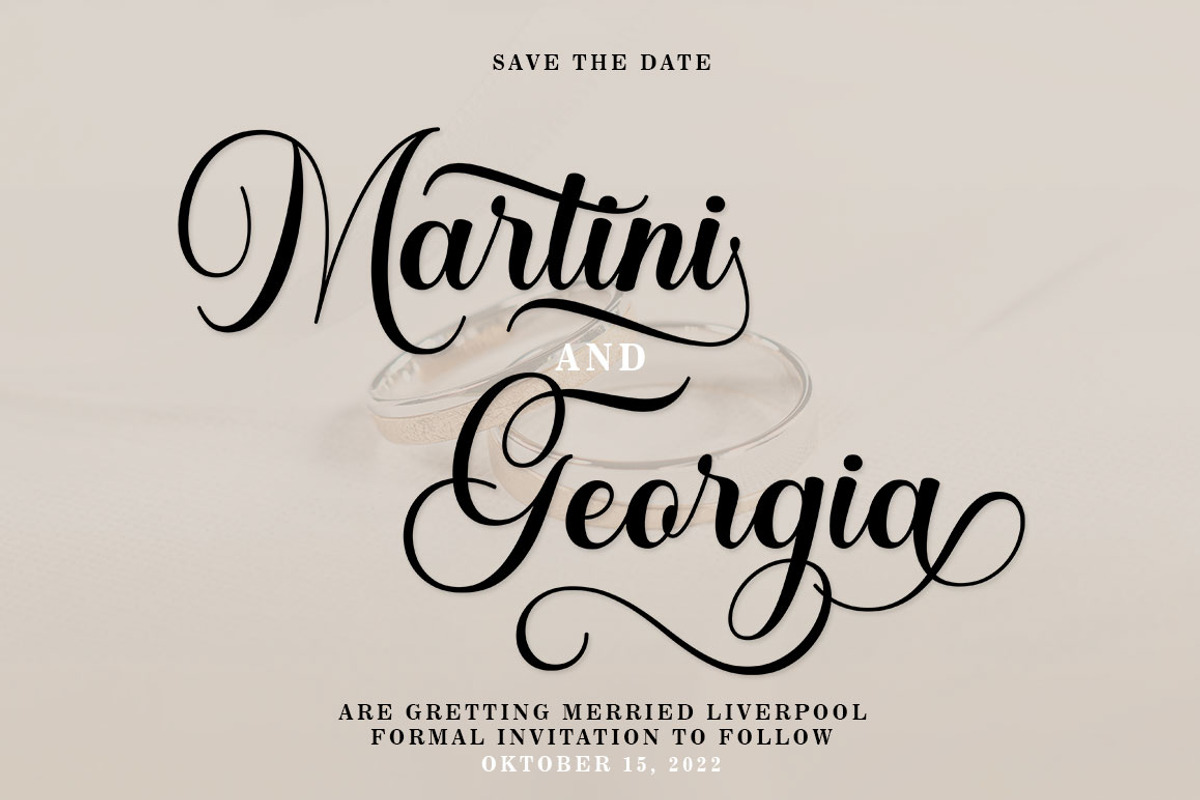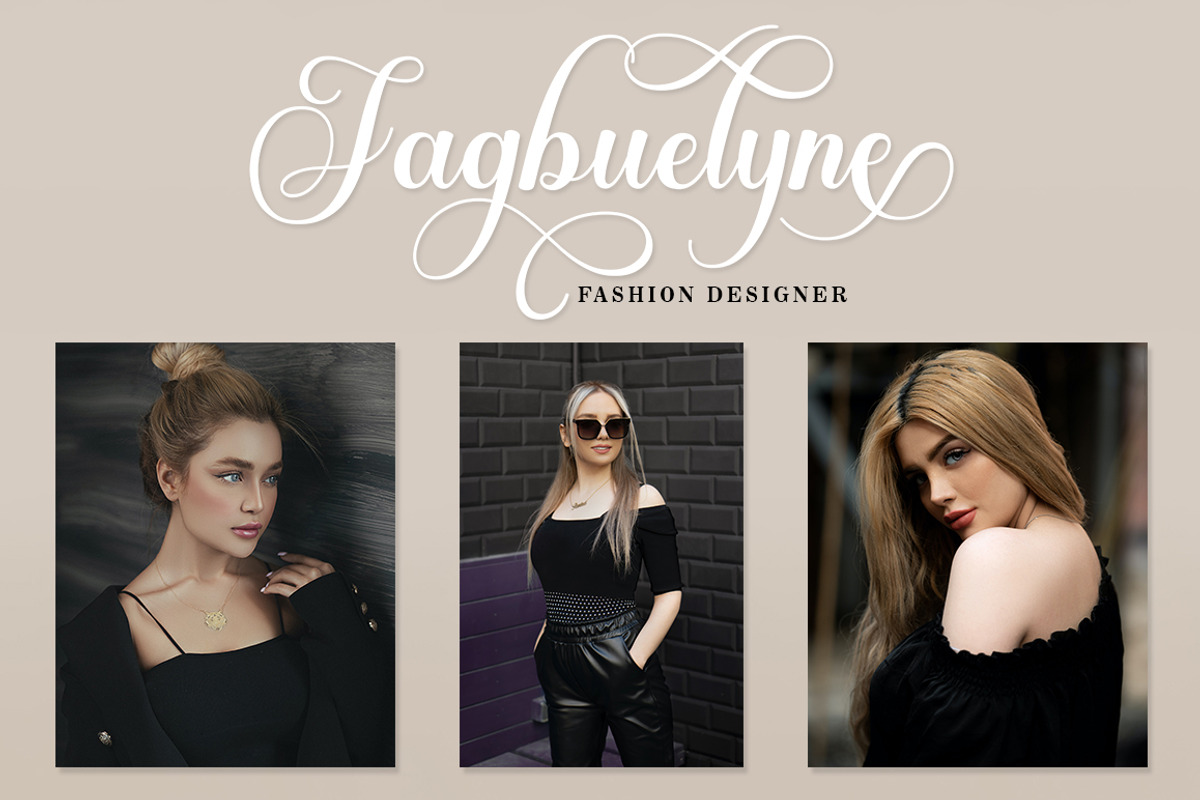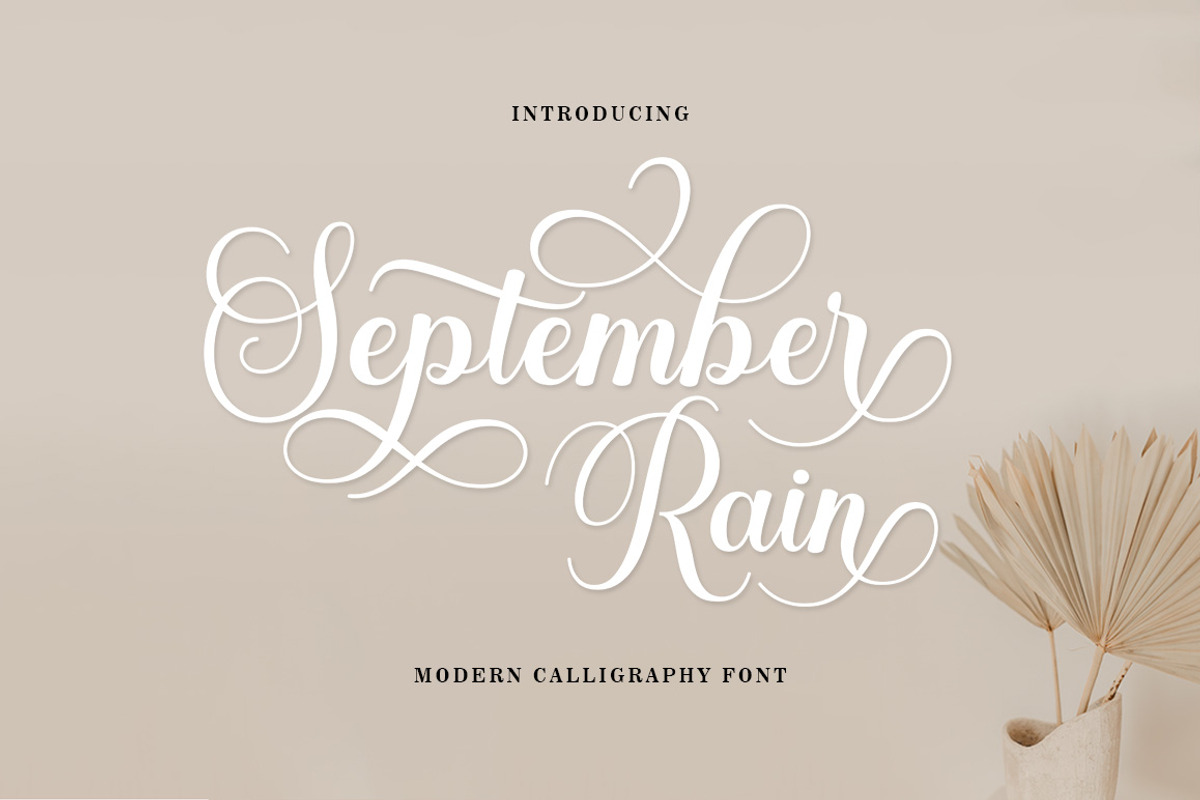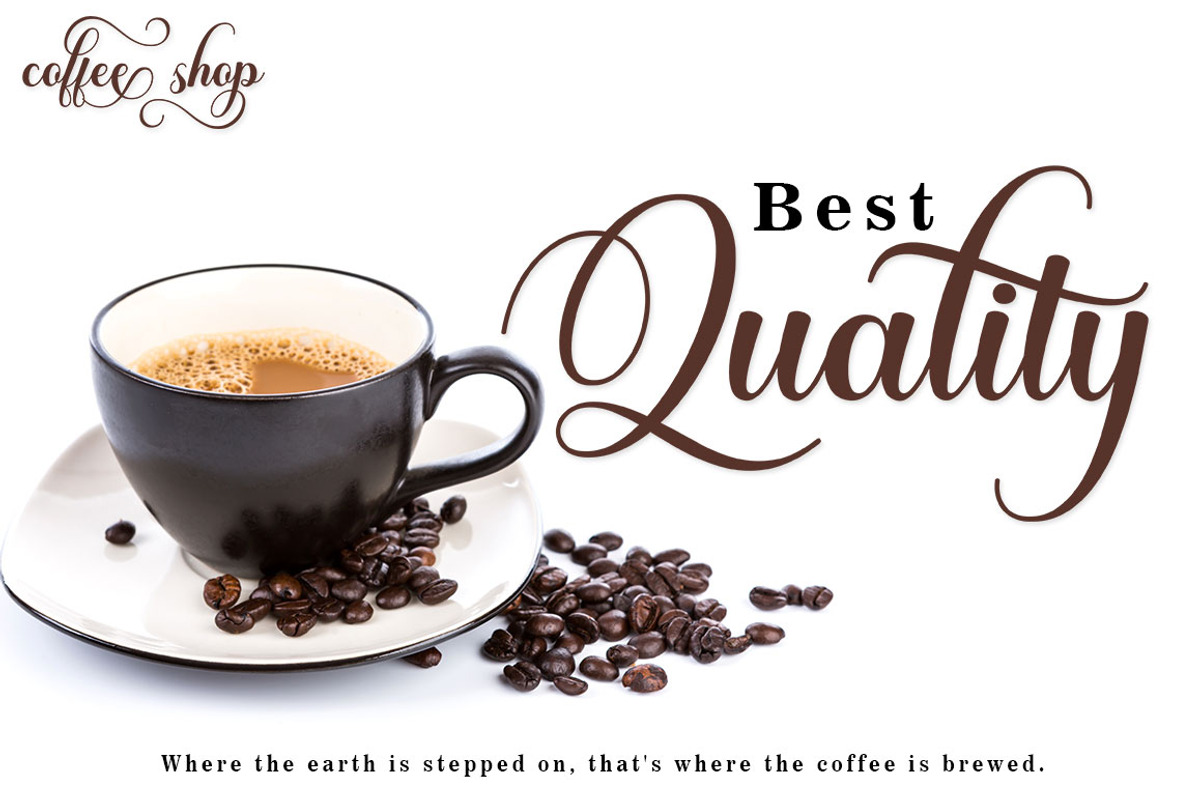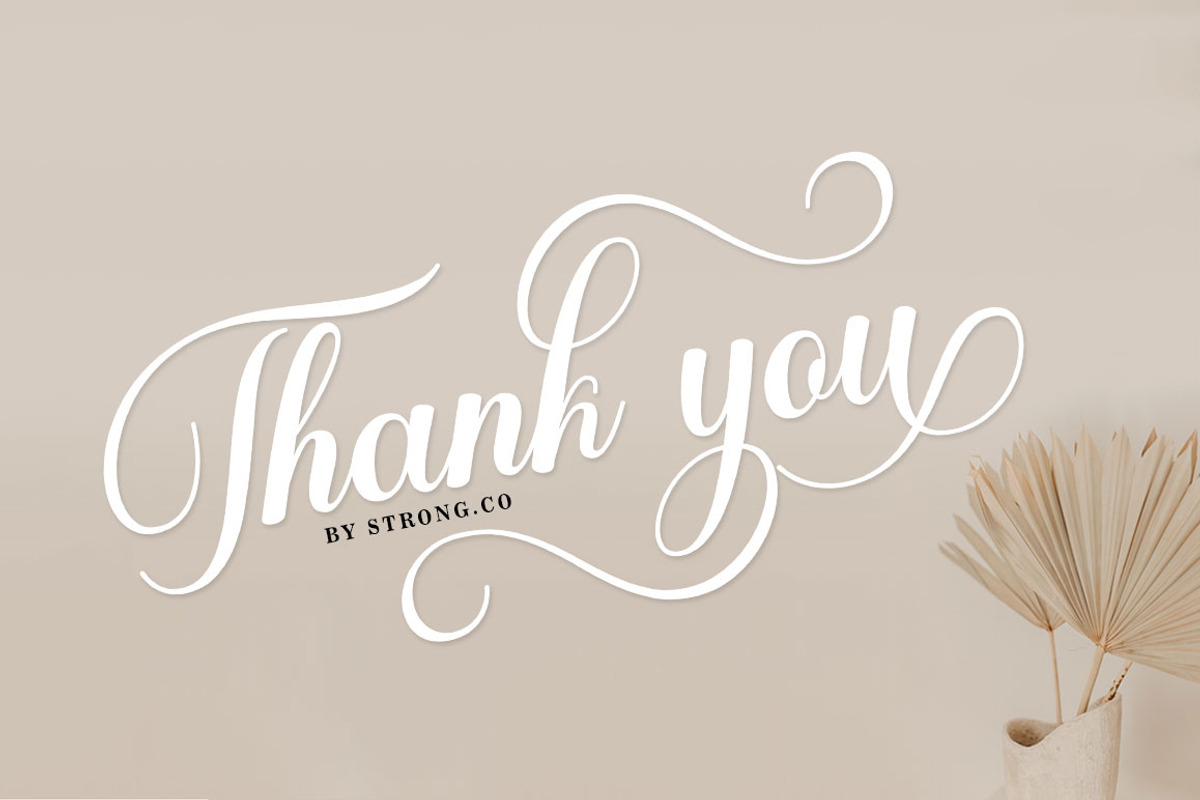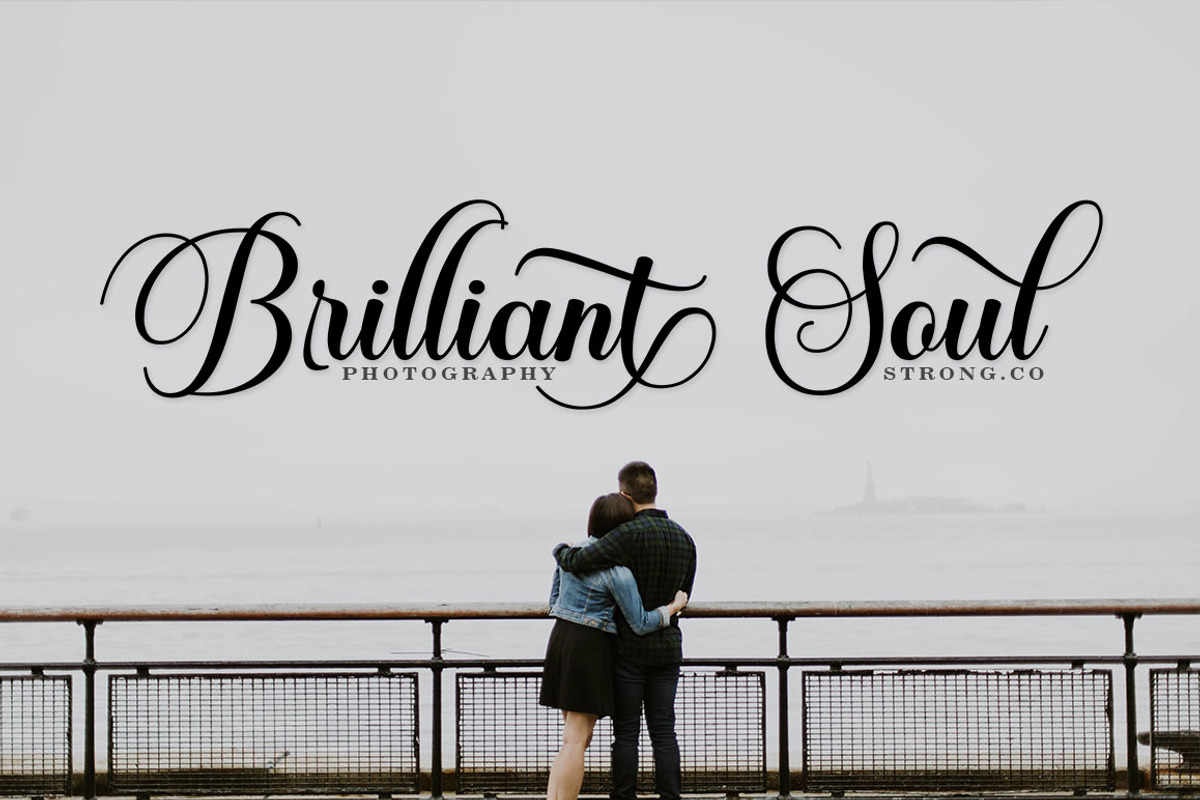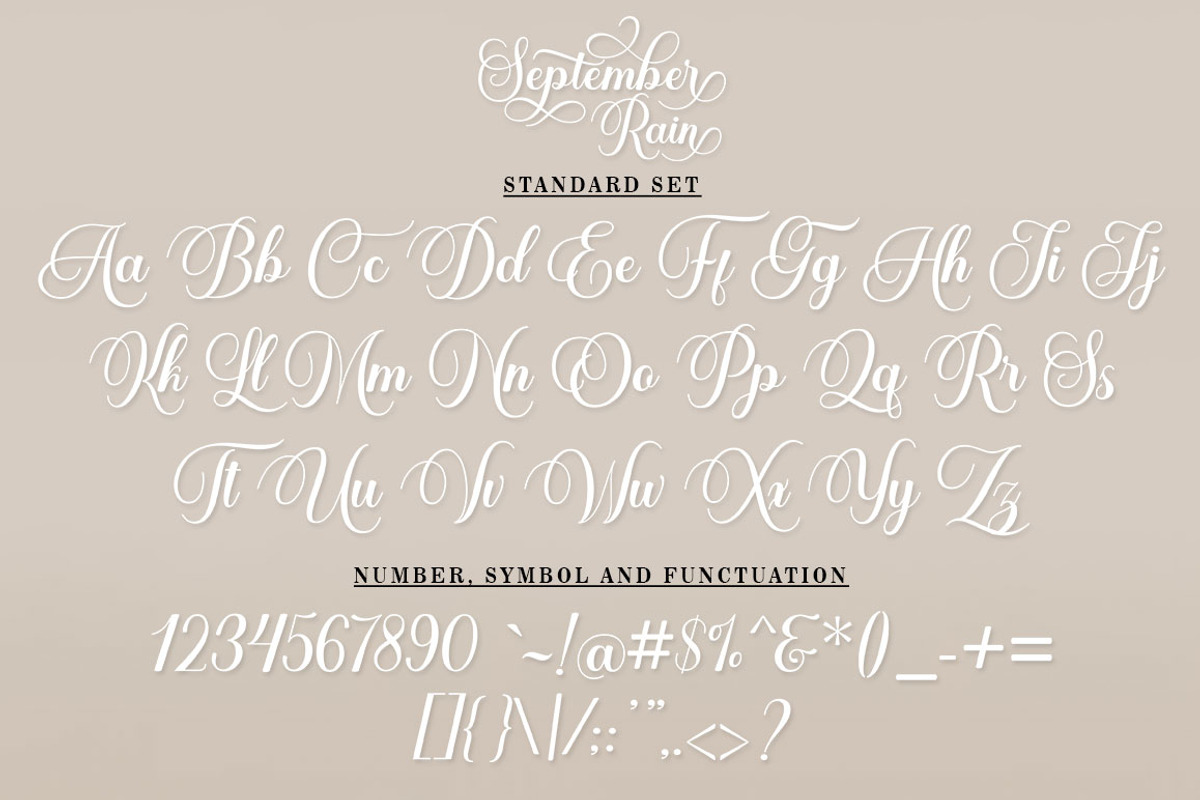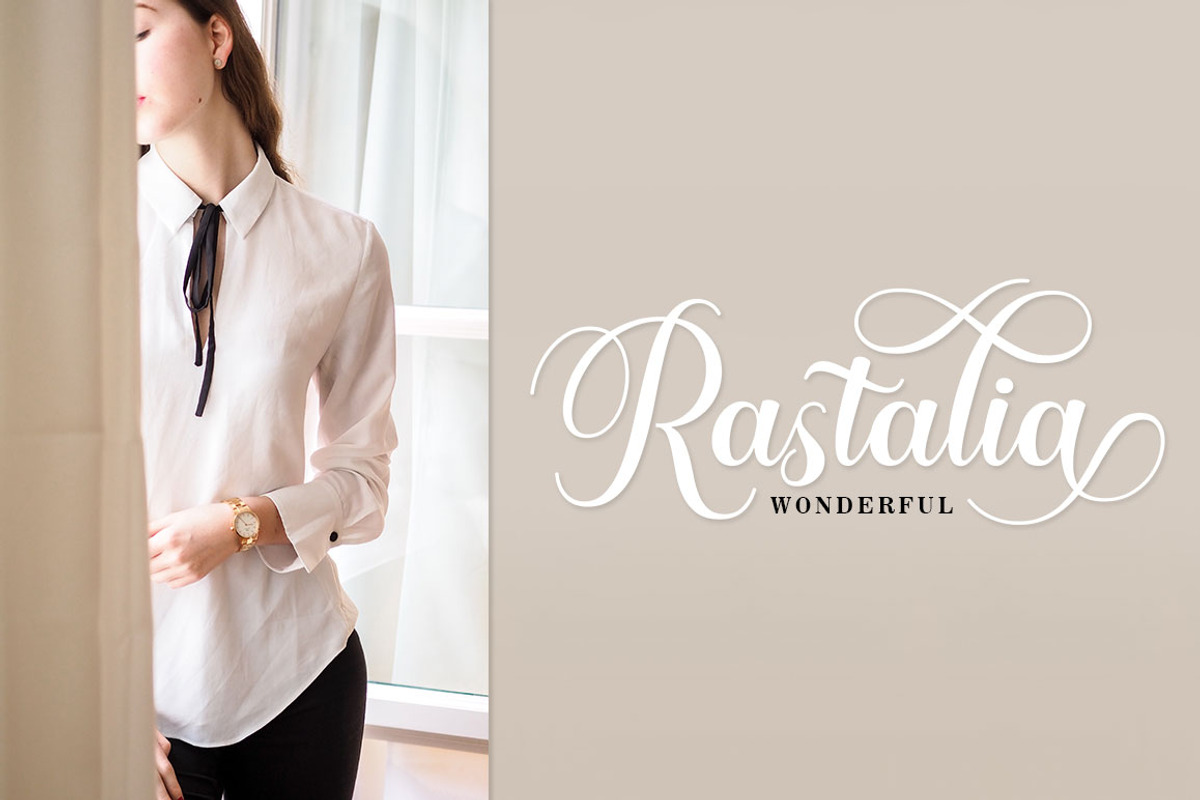
September Rain Script
September Rain Script is the font of choice for writing things beyond words. This typeface is designed with great detail to convey stylish elegance. So, it can be said, the character of the transformation is very beautiful, a kind of classic ornamental copper script.
September Rain Script provides alternative variants of most fonts, binders, and many calligraphy tips, ideal for elegant labels, high-end packaging, stationery and compositions for certain brands, beautiful titles, verses, letters and short text, intended for read only with the eyes or meant to be whispered into someone's ear.